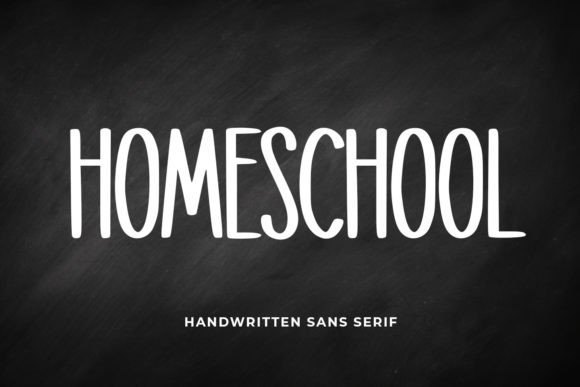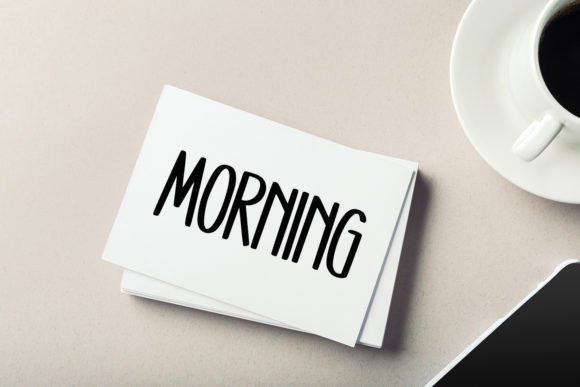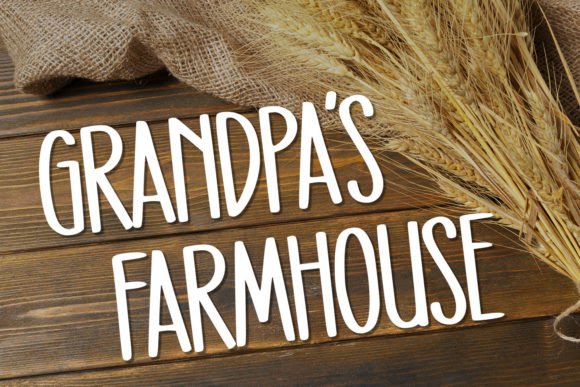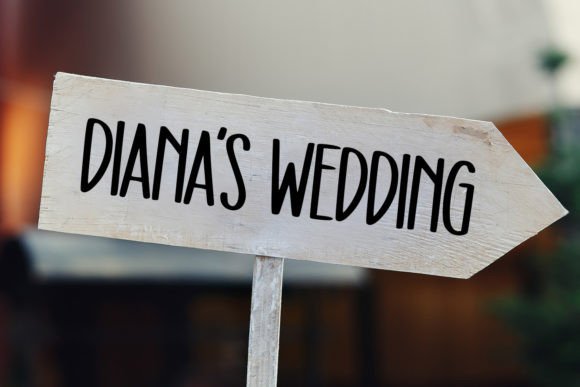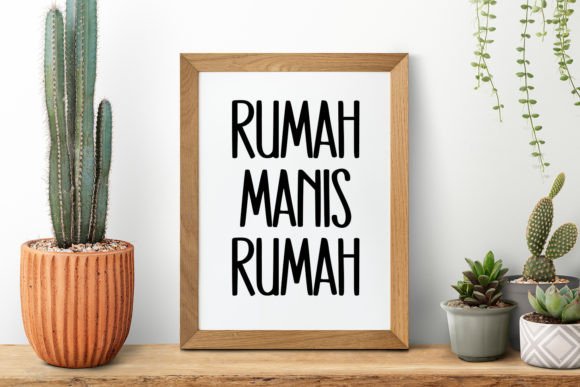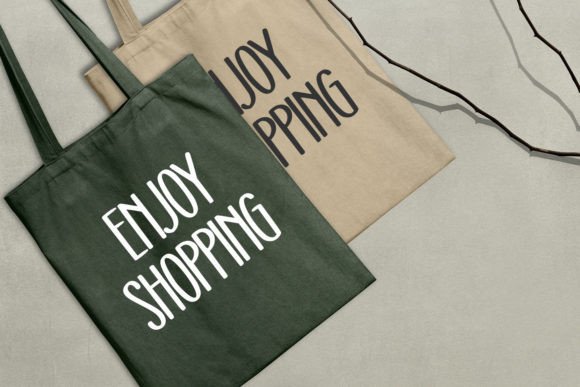
Homeschool Font
Homeschool is a delightful and approachable handwritten font. Striking a harmonious balance between not being overly thin or excessively thick, this font offers a diverse and well-rounded character set, specifically created to amplify the charm of your creative projects.
This font’s playful and friendly demeanor makes it an excellent choice for a wide range of applications. Whether you’re working on invitations, greeting cards, posters, or any design project, Homeschool brings a warm and inviting quality that instantly resonates with audiences.
Homeschool’s versatility is one of its key strengths, allowing it to adapt seamlessly to various contexts. Its casual yet legible style lends itself well to projects that seek to convey a sense of approachability and authenticity.
In summary, Homeschool is more than just a font; it’s a tool that adds a touch of friendliness and creativity to your designs. Its balanced and varied design ensures that your projects will captivate and engage your audience with a welcoming and appealing aesthetic. Embrace Homeschool to enhance the beauty of your creative endeavors and infuse them with a sense of playfulness and warmth.